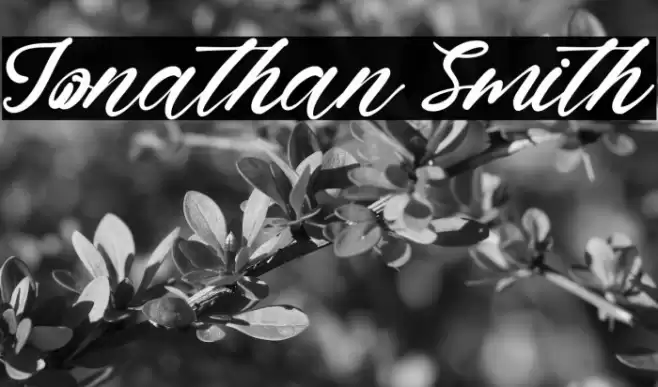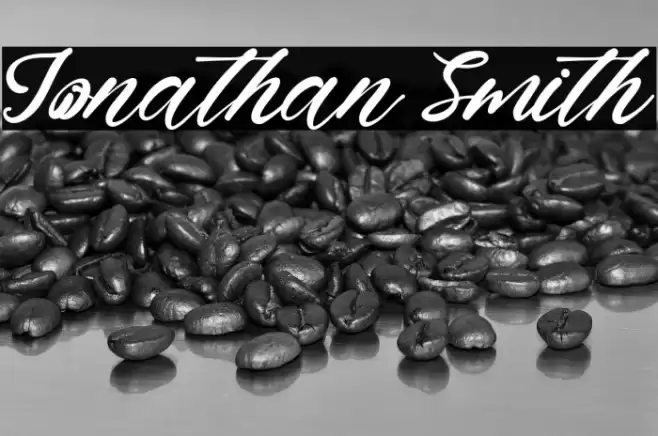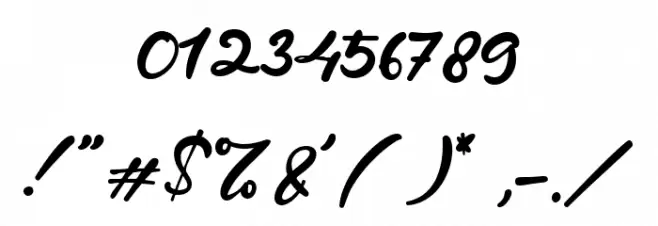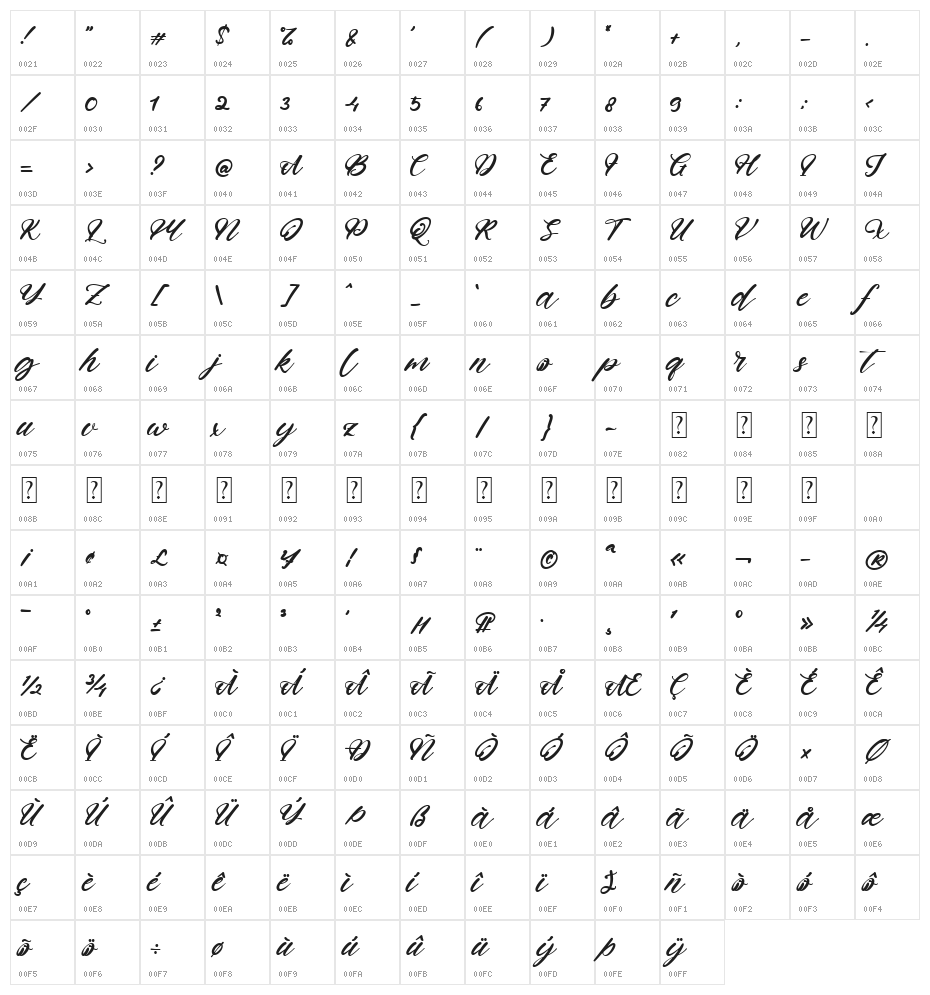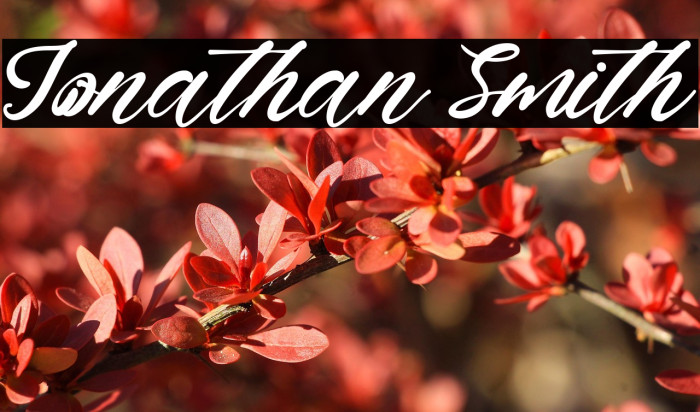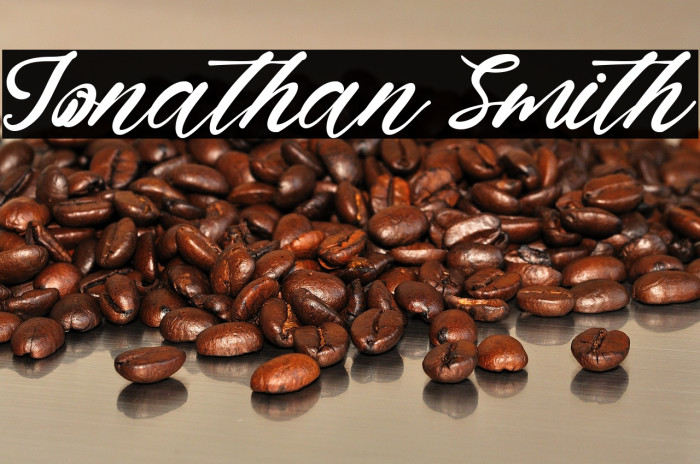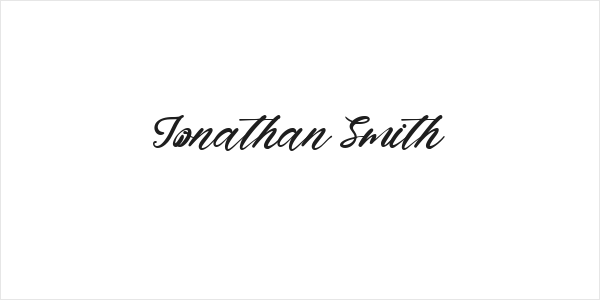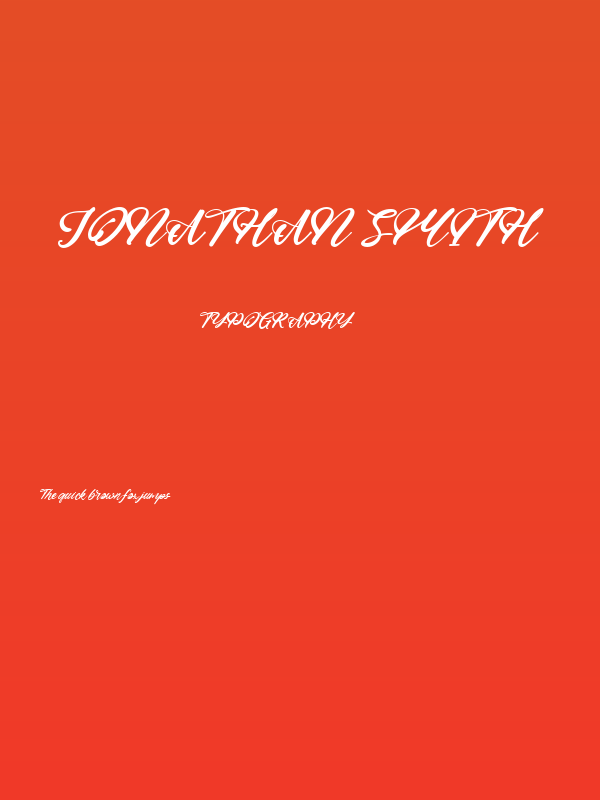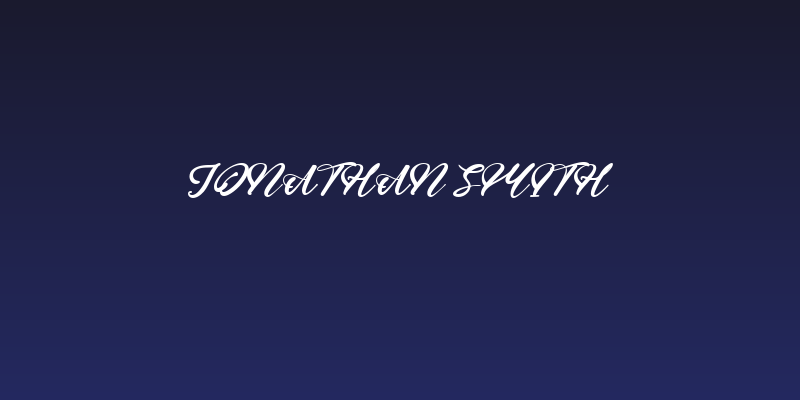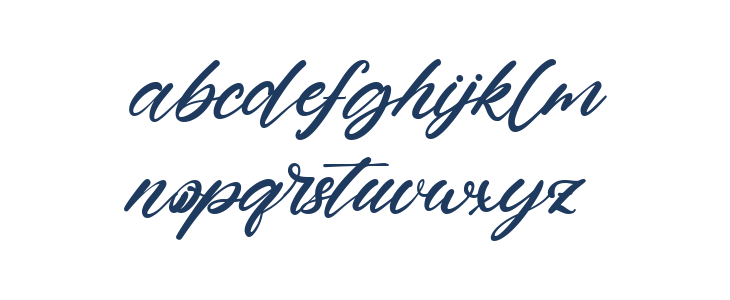
Jonathan Smith Font
Jonathan Smith Description
This font exudes a dynamic and elegant script style, characterized by its flowing, cursive strokes and a sense of fluidity. The uppercase letters are bold and expressive, with sweeping curves and a sense of movement that gives them a lively appearance. The lowercase letters maintain a consistent flow, with smooth connections between characters, enhancing readability while retaining an artistic flair. The numerals are well-integrated into the script style, maintaining the same fluidity and elegance. Special characters are thoughtfully designed to match the overall aesthetic, ensuring a cohesive look across all text elements. This font is ideal for projects that require a touch of sophistication and creativity.
A dynamic and elegant script font with flowing, cursive strokes from Regular fonts.
- Overall Style: Elegant, Artistic